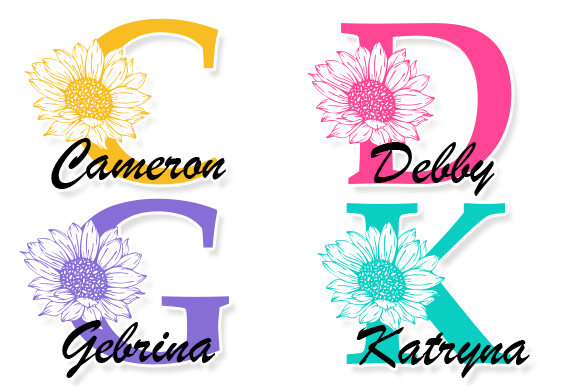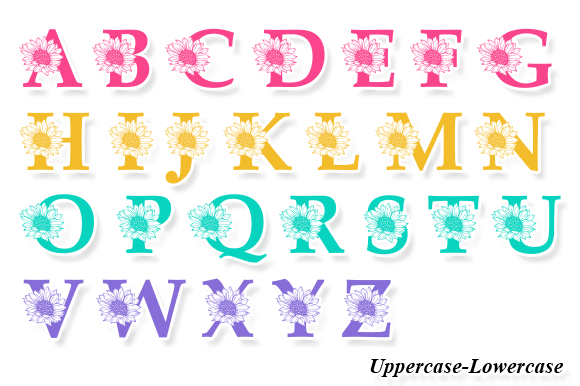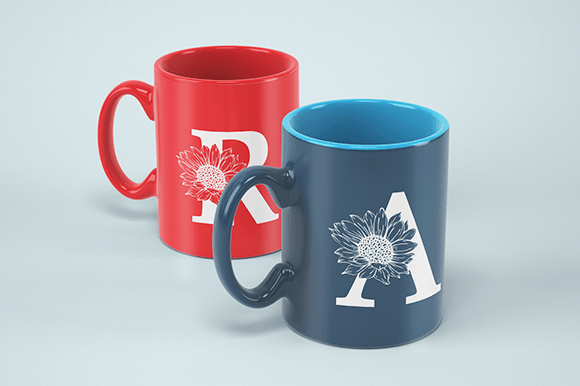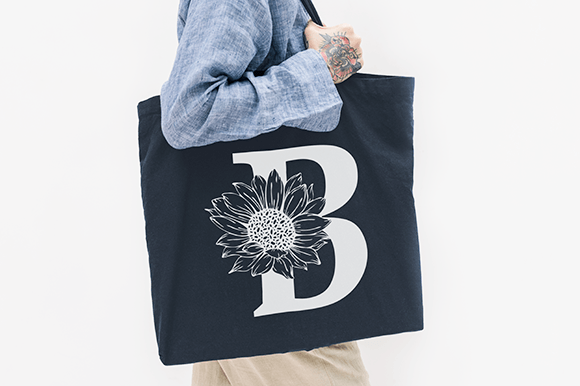
Cameron Monogram Font
About the Cameron Monogram Font
Let us introduce you to Cameron Monogram Font, where timeless design meets modern craftsmanship. Cameron Monogram is a cool and original-looking decorative font. It is suitable for logotypes, headlines, corporate identity, brand identity, apparel industry, posters, music, movies, games, magazines, books, comics, cartoons, YouTube, Instagram, websites, or any of your creative design projects.
Cameron Monogram’s decorative style excels in headlines, short impactful phrases, and logos where its unique character can shine. It’s ideal for branding projects aiming for a vintage or retro feel, and works well on posters and packaging demanding visual impact. However, its ornate forms make it less suitable for body text or UI elements requiring high readability.
The font’s personality is bold and playful, yet retains a touch of elegance. It projects a confident, slightly nostalgic mood, perfect for brands in fashion, entertainment, or lifestyle sectors.
Pairing Cameron Monogram with a clean sans-serif like Open Sans for body text provides excellent contrast and readability. For a more vintage aesthetic, consider pairing it with a serif font like Playfair Display. Avoid pairing it with other highly decorative fonts to prevent visual clutter.
Cameron Monogram Font Usage Examples
Cameron Monogram Font Example